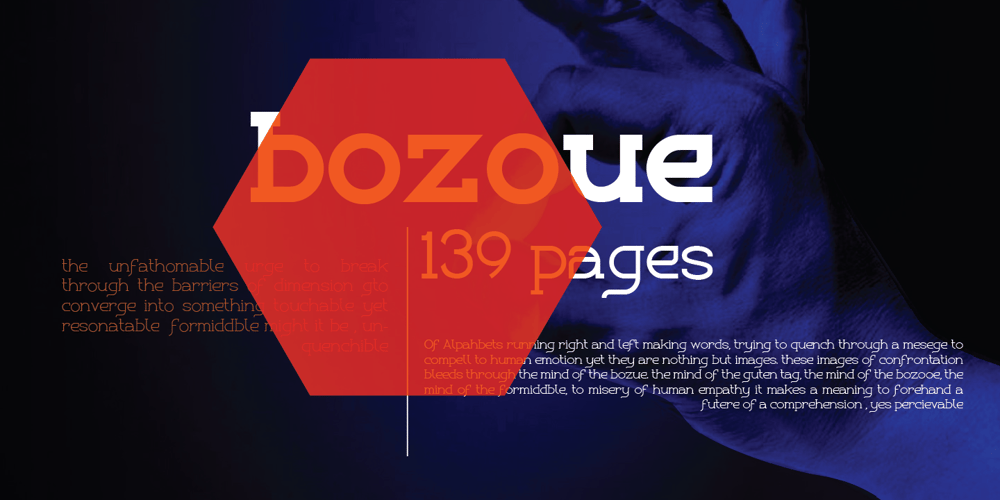
Bozue Font Family was designed by Lizzy Levy and published by Lithographe. Bozue contains 12 styles and family package options. Bozue is an alternate between textual simplicity and display complexity. It is a Slab-Serif typeface meant for versatility and differentiation. It can be used as a title case it can be used as a text font. Its readability does not compromise its display ability. It’s both bold enough to effect the tone of the message yet sensual enough to carry it through. The bi-linear efficiency of this tonal-mapping through visual comprehension make it a “must have” font for any designer.